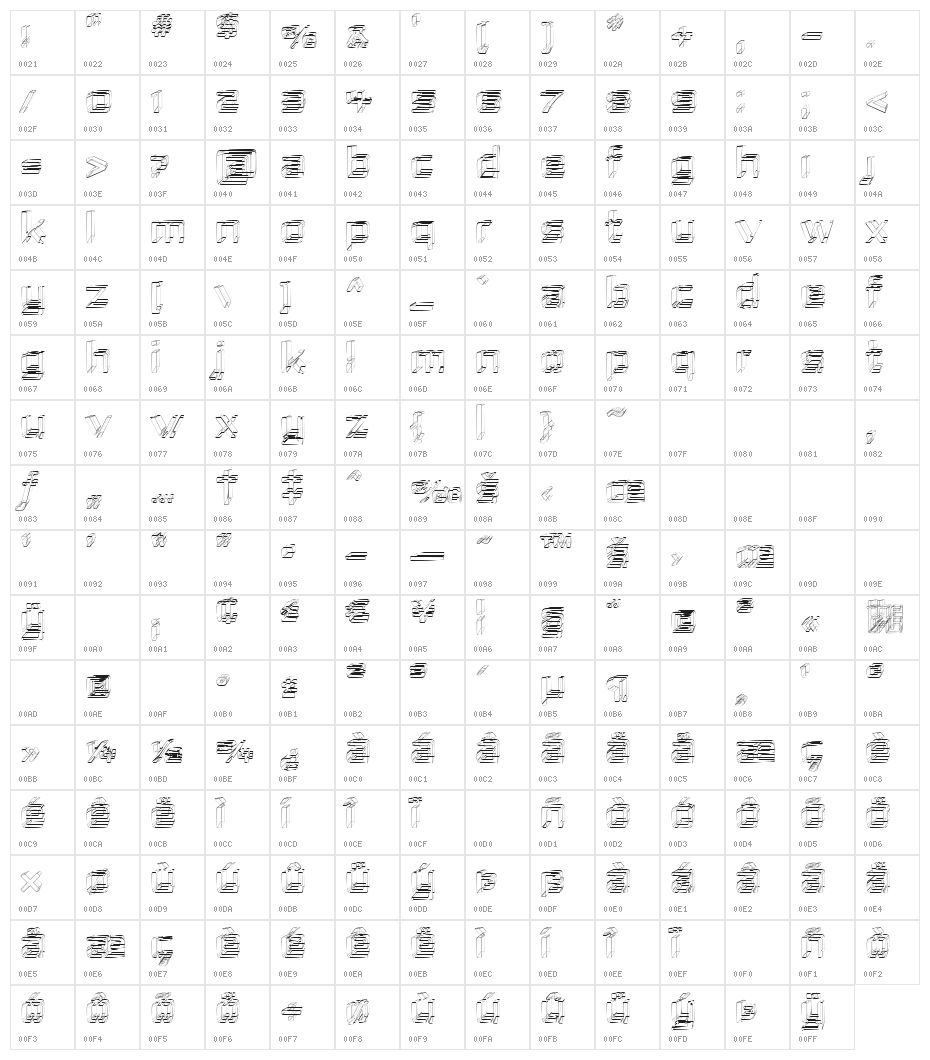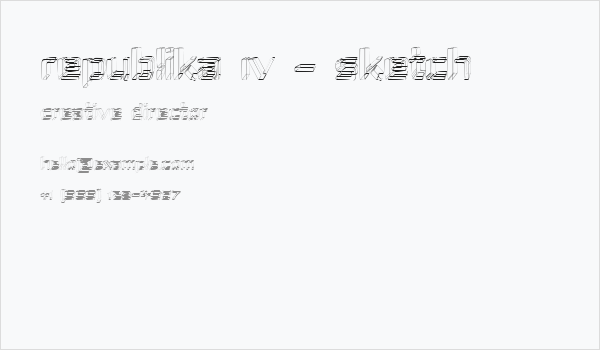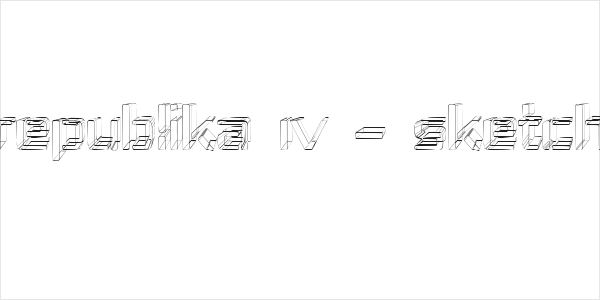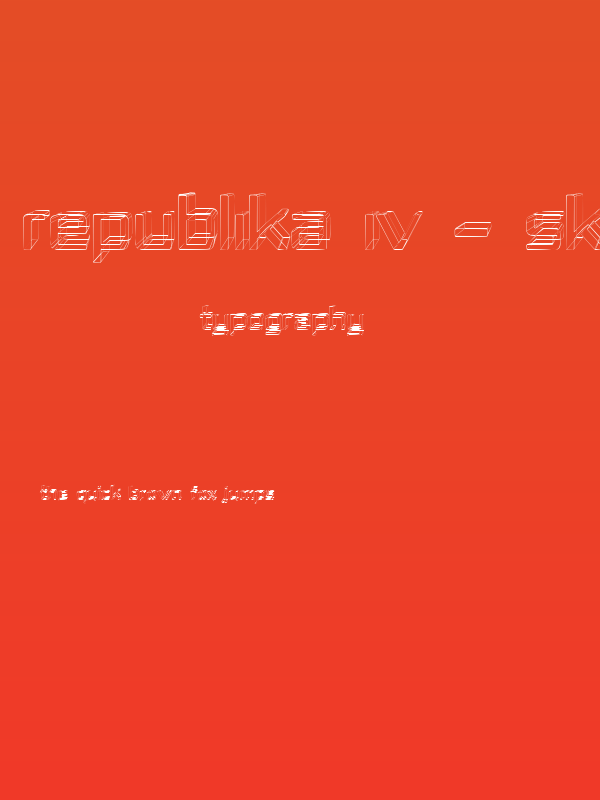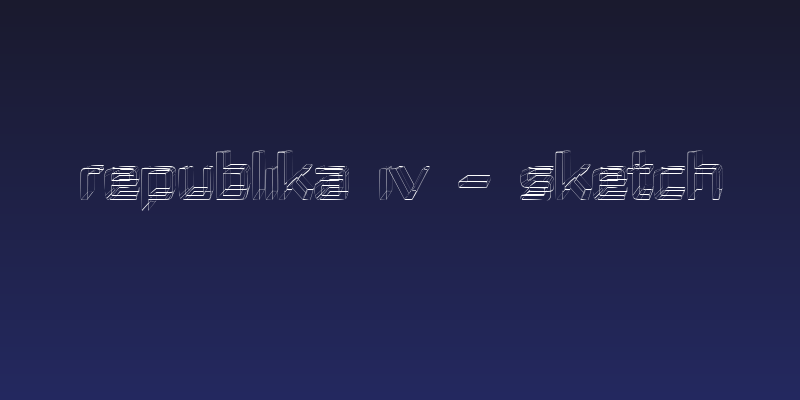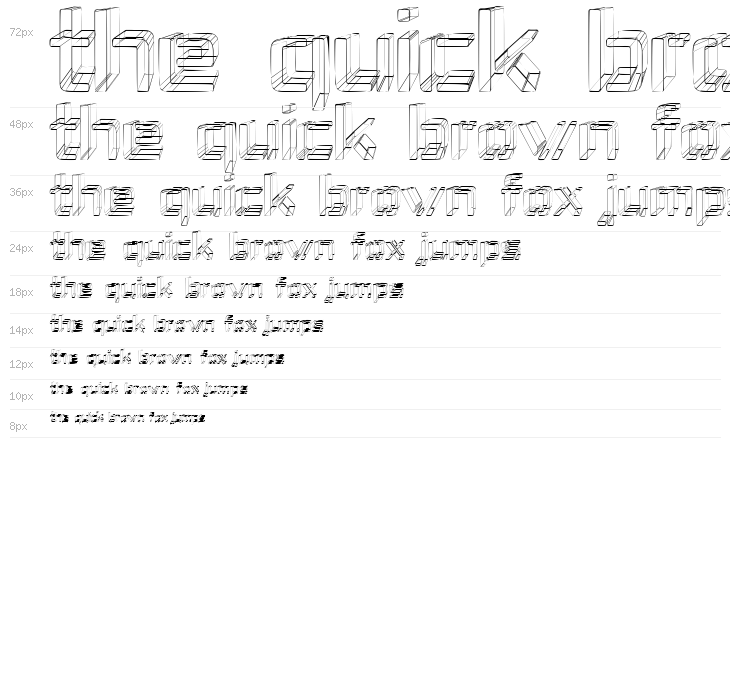
Republika IV - Sketch Font
Republika IV - Sketch Description
This font features a unique, three-dimensional sketch style that gives each character a dynamic and artistic appearance. The letters are constructed with overlapping lines, creating a sense of depth and movement. The uppercase and lowercase letters maintain a consistent geometric structure, while the numbers and special characters follow the same design principles, ensuring uniformity across all elements. The font's playful and creative design makes it stand out, offering a visually engaging experience. It is ideal for projects that require a bold and artistic touch, such as posters, album covers, or branding materials. The intricate line work and shadow effects add complexity and interest, making it suitable for modern and experimental design contexts.
| Proposed Projects | Ideal for posters, album covers, branding materials, and experimental design projects. |